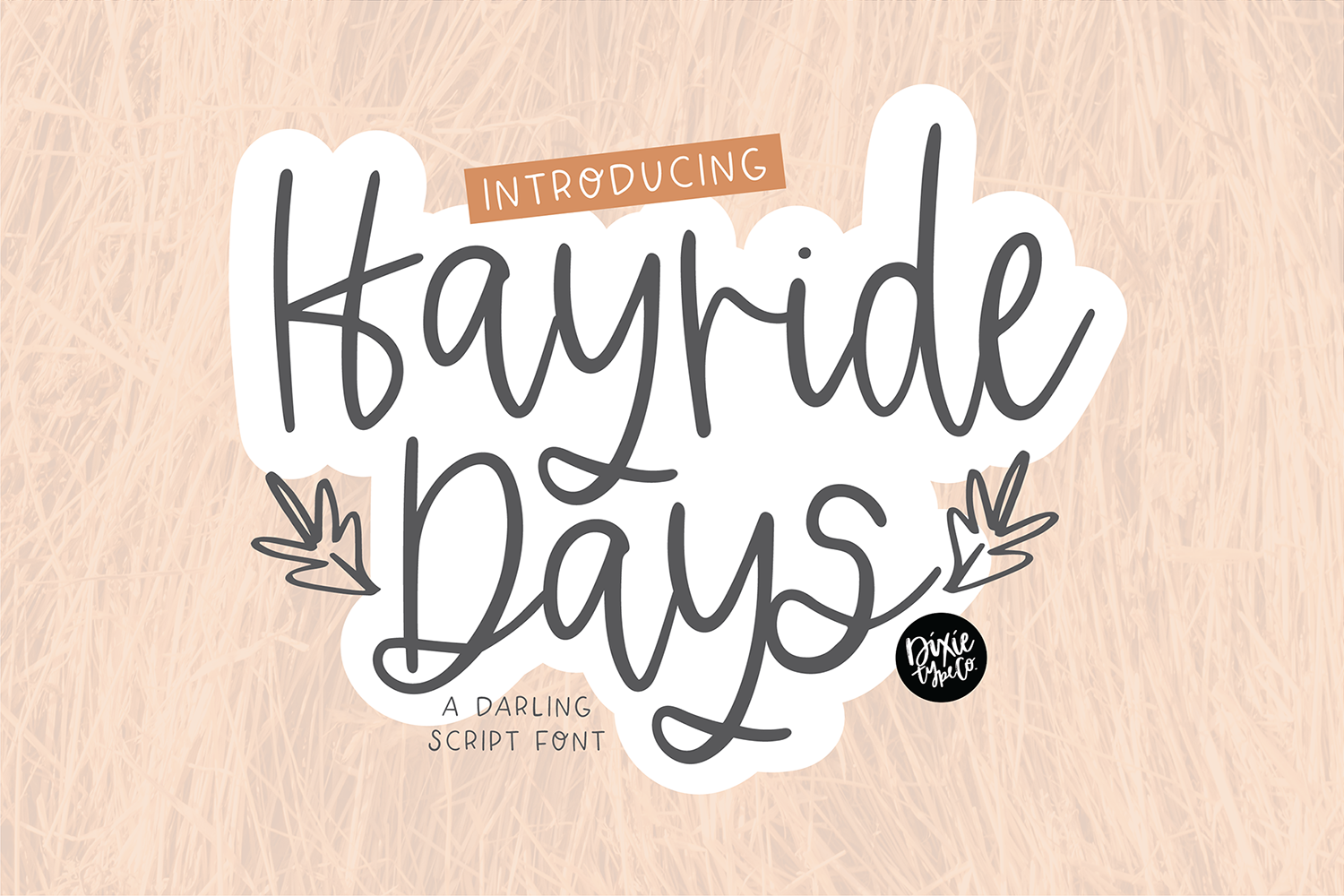
HAYRIDE DAYS Fall Script Font
"Hayride Days" a pretty handwriting script font
{ A typographic font hand-lettered with love by Dixie Type Co. }
Hayride Days is a casual script font made for your fall projects and decor.